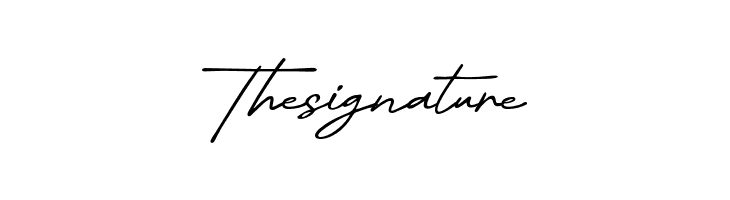
A sophisticated script font with smooth, flowing lines and a cursive style.
A playful, hand-drawn font with a whimsical and friendly vibe.
A modern geometric sans-serif font with clean lines and balanced proportions.
A casual, handwritten font with a natural, flowing style.
A bold, angular font with a modern, geometric style.
A bold, handwritten font with smooth, flowing curves and a casual elegance.
A bold, extended, and oblique typeface with a modern, dynamic style.
A playful font with bold characters on hanging tags, perfect for informal and decorative projects.
A bold, modern sans-serif font with geometric structure and uniform width.